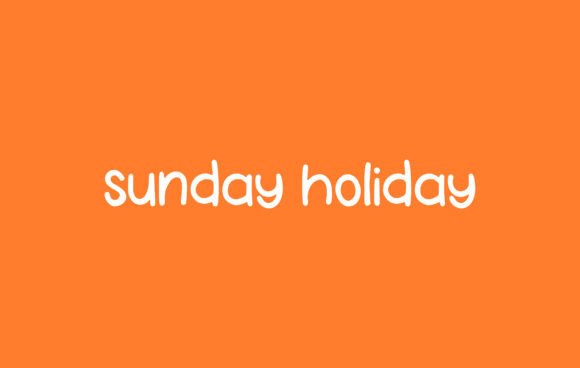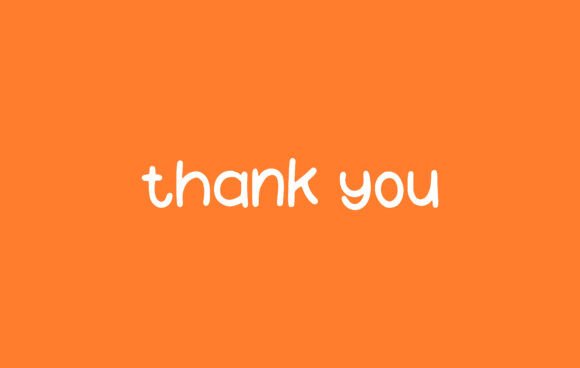
Golden Age Script Font
Golden Age Script is a charming, rounded script font with a playful bounce and a warm, nostalgic feel. Perfect for children’s designs, cozy packaging, friendly branding, and uplifting quotes. Its smooth curves and cheerful personality make it endlessly approachable.